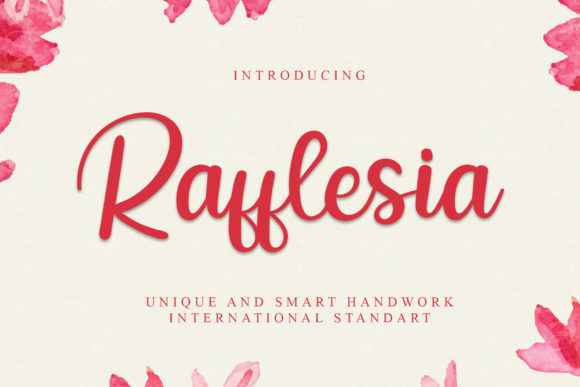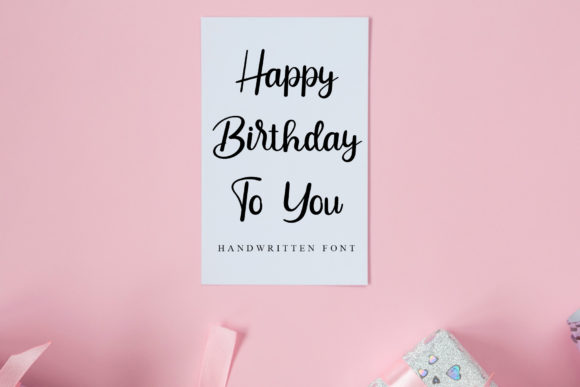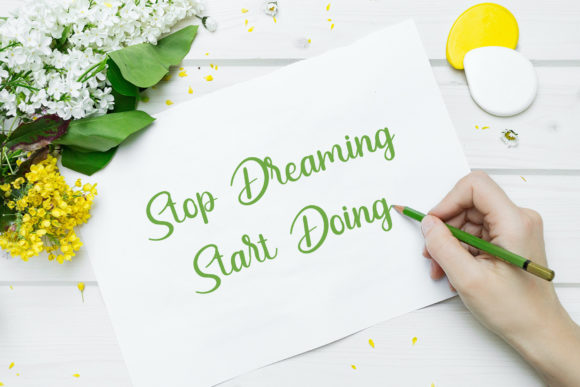
About Rafflesia Font
Rafflesia is a beautiful handwritten font. It is perfect to be used on wedding invitations, greeting cards, billboards, logos, business cards, and any other design that requires a handwritten touch. This carefully crafted font features a varied baseline and it will elevate each of your designs.